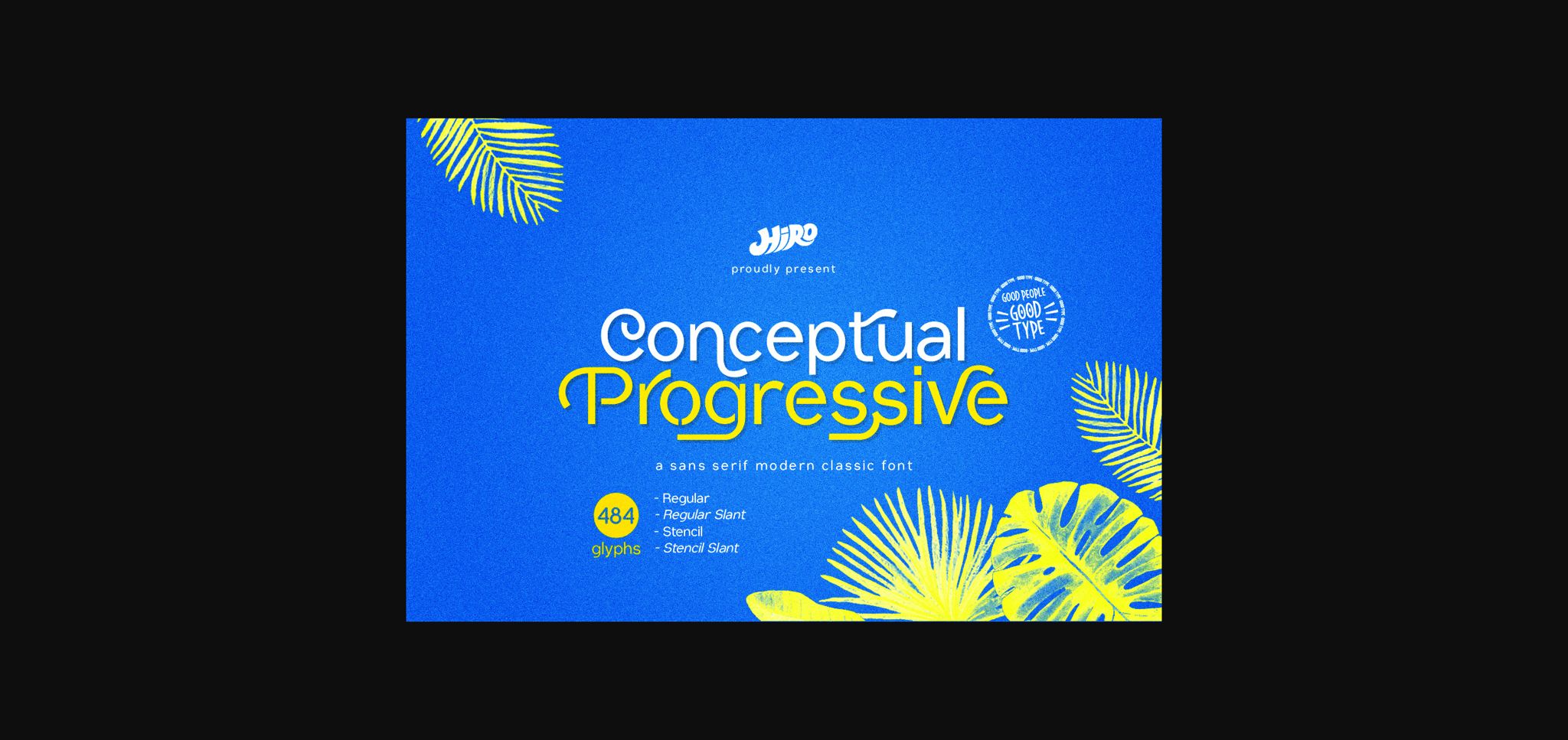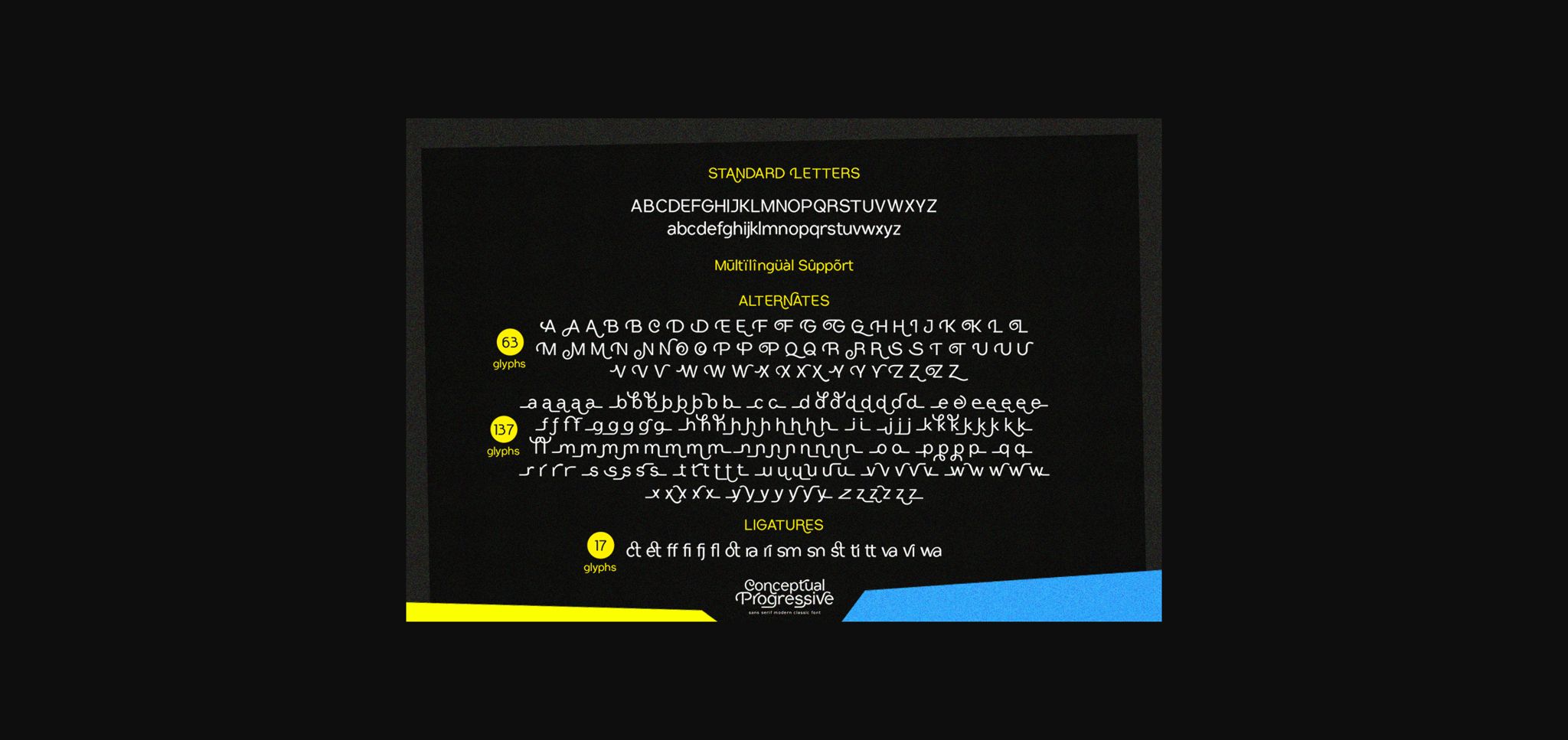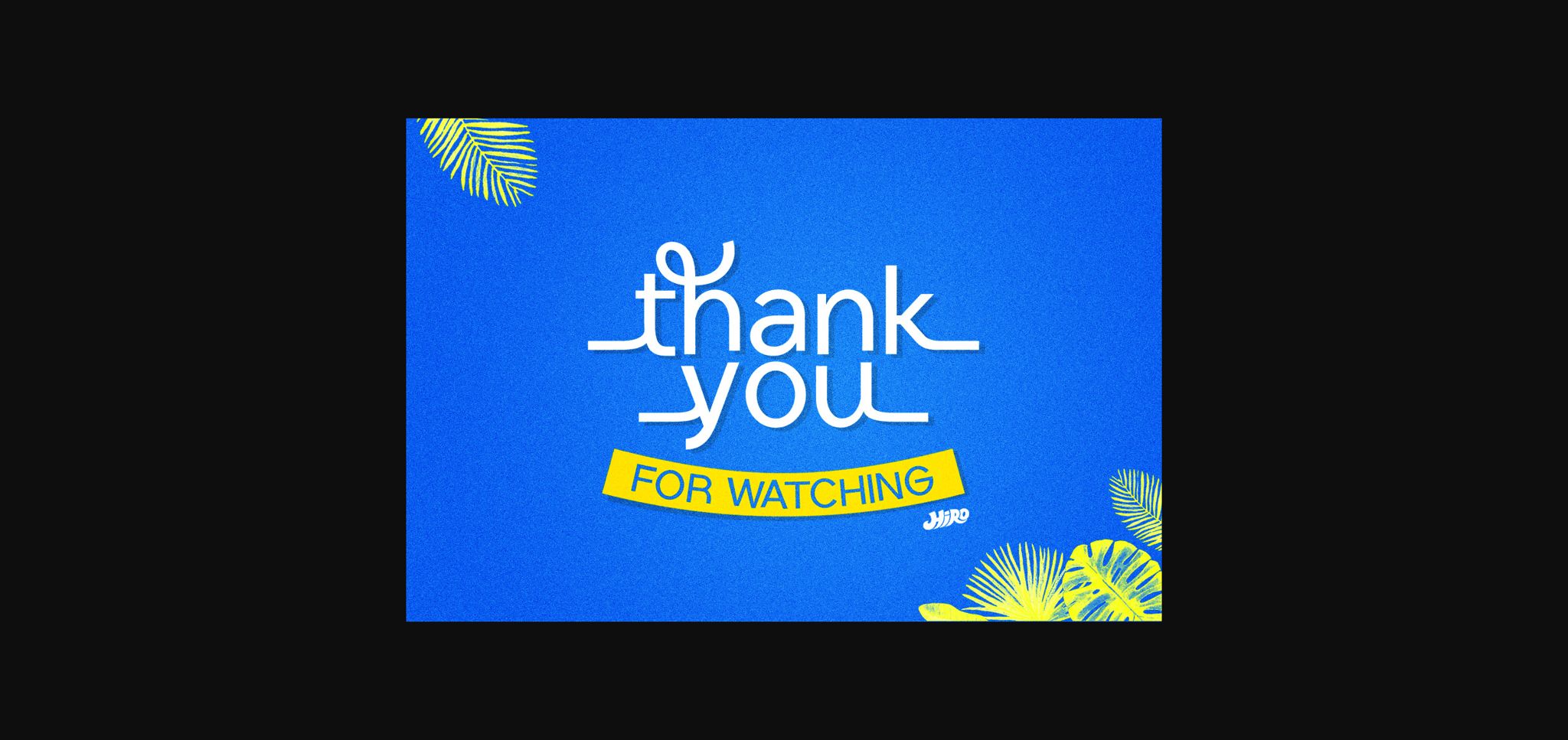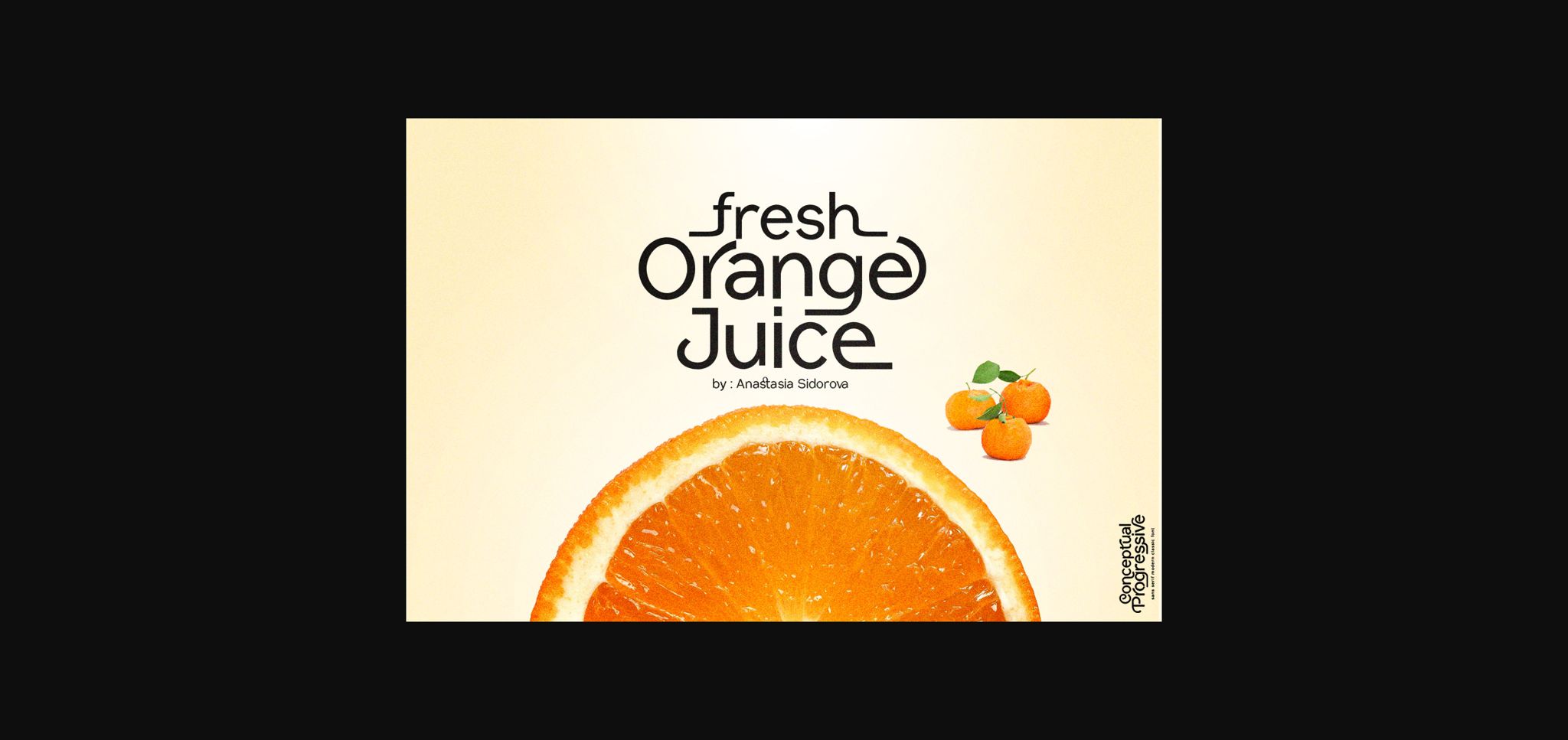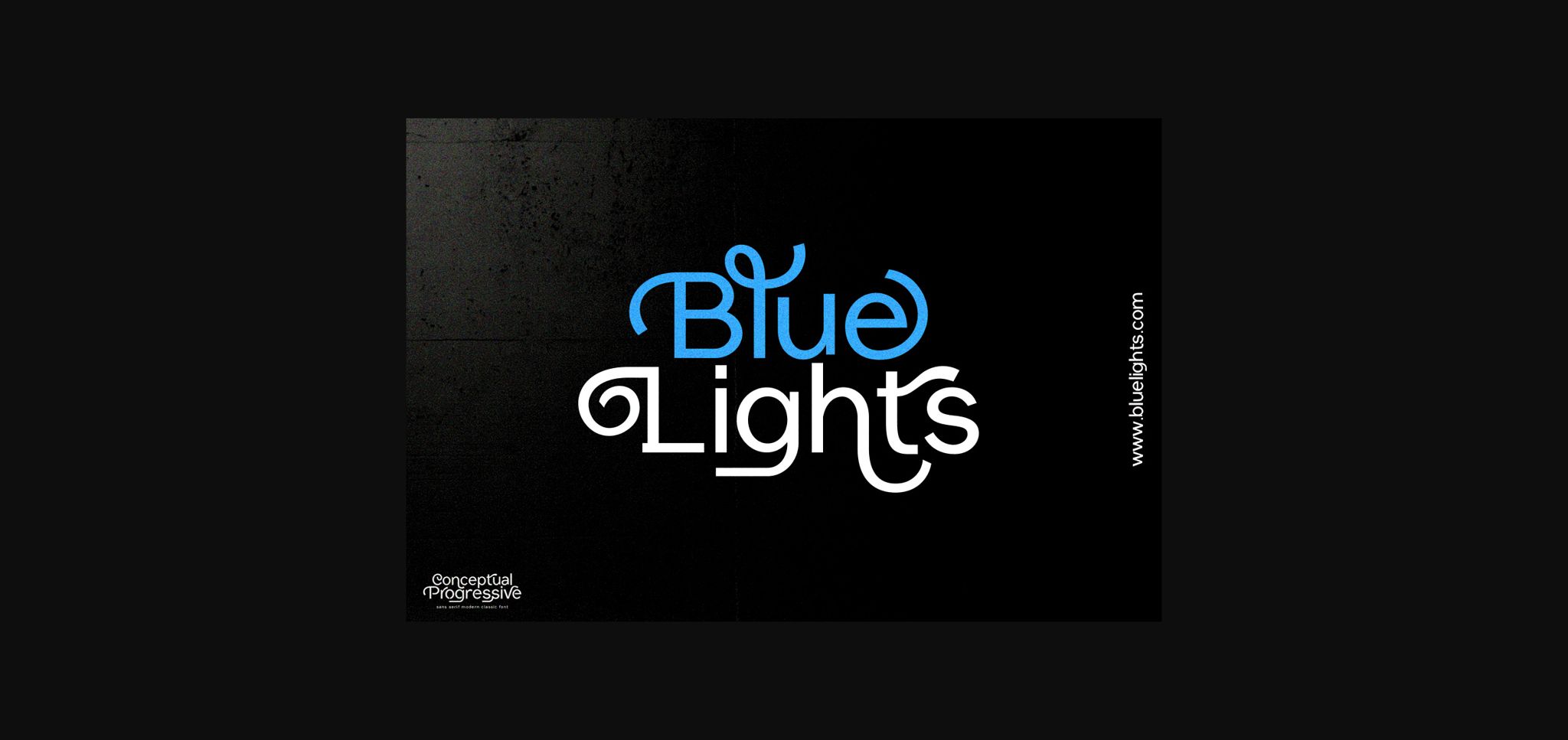
Conceptual Progressive Font
About Conceptual Progressive Font
Conceptual Progressive is a minimal, yet elegant sans serif font. Suitable to a wide variety of designs due to its neat and simple style, this font has the potential to become your favorite go-to font, no matter the occasion!